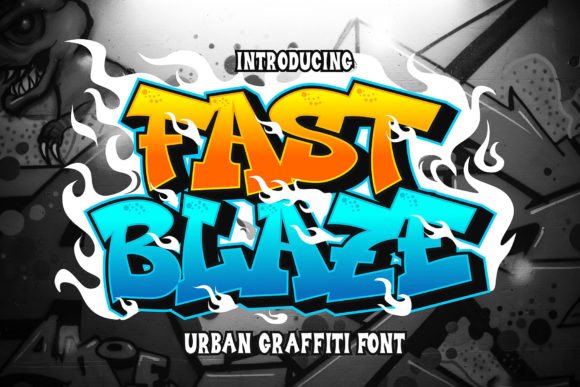
Introducing Fast Blaze Font, the ultimate font choice for those seeking to make a bold and edgy statement in their designs! Created by the talented minds at Cikareotype, this urban graffiti font is here to revolutionize your projects and captivate your audience.
Fast Blaze Font is characterized by its sharp edges and fearless appearance, making it the ideal font for music posters, apparel designs, shirts, and streetwear. Its unique style brings a touch of rebelliousness and attitude to any creative endeavor, setting you apart from the crowd.
Are you looking to create a powerful and unforgettable impact? Look no further than Fast Blaze Font. Its bold and commanding presence will leave a lasting impression on your audience, ensuring that your message is heard loud and clear. This font is a game-changer for those who want to elevate their designs to new heights.
Whether you're a fan of death metal or urban graffiti themes, Fast Blaze Font is the perfect companion for your artistic journey. Its versatility allows you to experiment with various design elements, giving you the freedom to express your creativity without limitations.
Imagine the reaction you'll get when you unveil your designs adorned with Fast Blaze Font. It's not just a font, it's a statement. It's a symbol of individuality, rebellion, and artistic expression. With Fast Blaze Font, you have the power to leave a lasting mark on the world.
Your search for the best font ends here. Fast Blaze Font is the ultimate choice for those who dare to be different, who crave uniqueness, and who aren't afraid to make a statement. Join the revolution and let Fast Blaze Font ignite your creativity today!